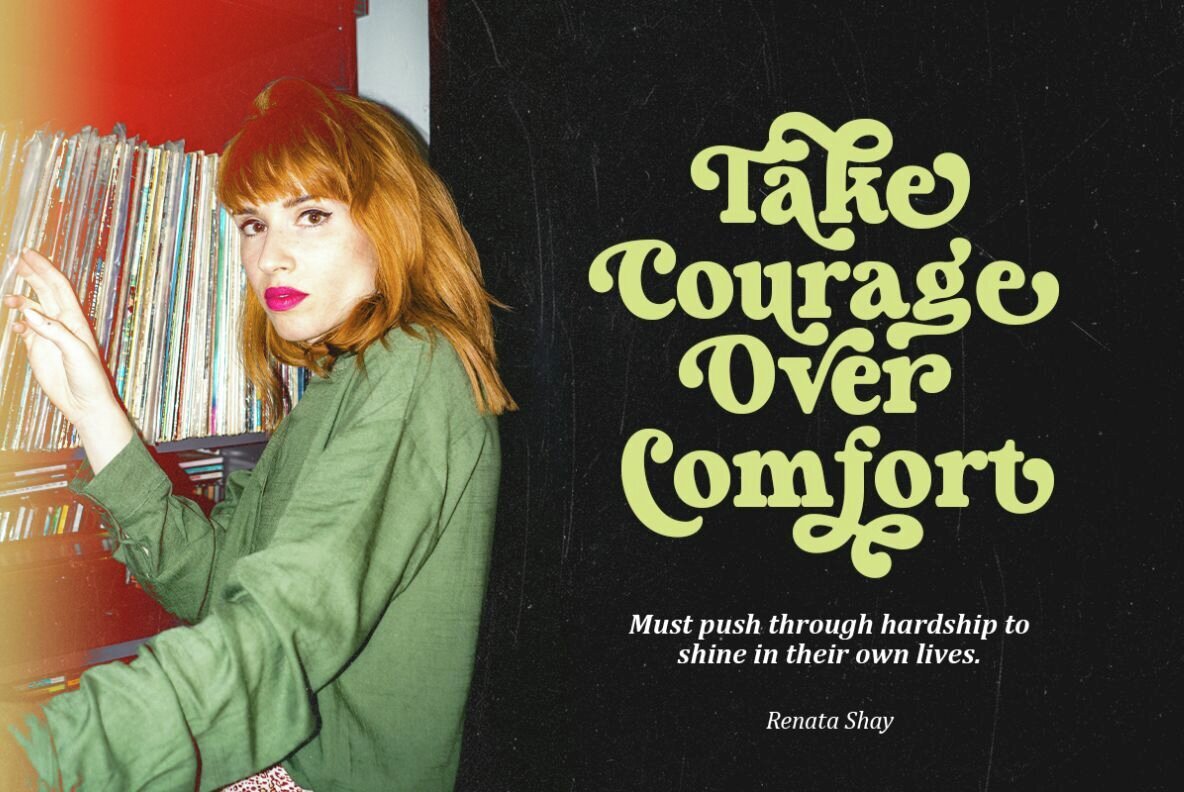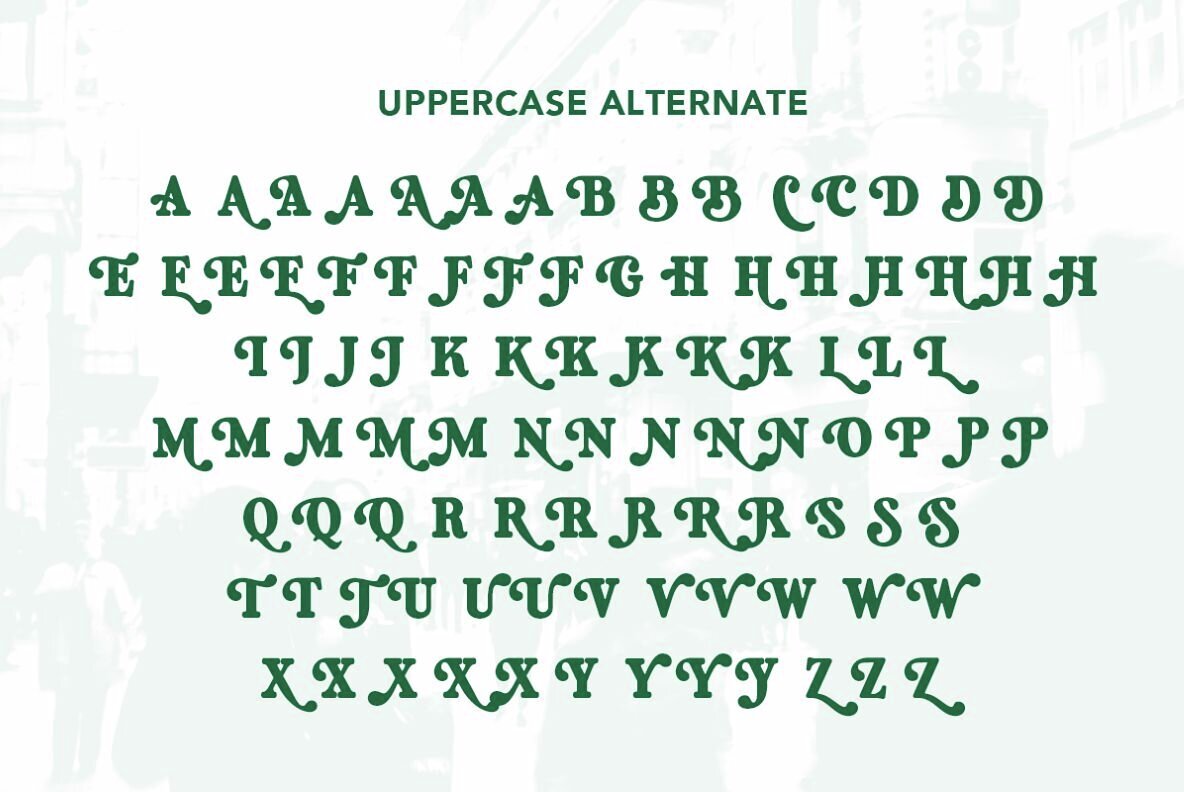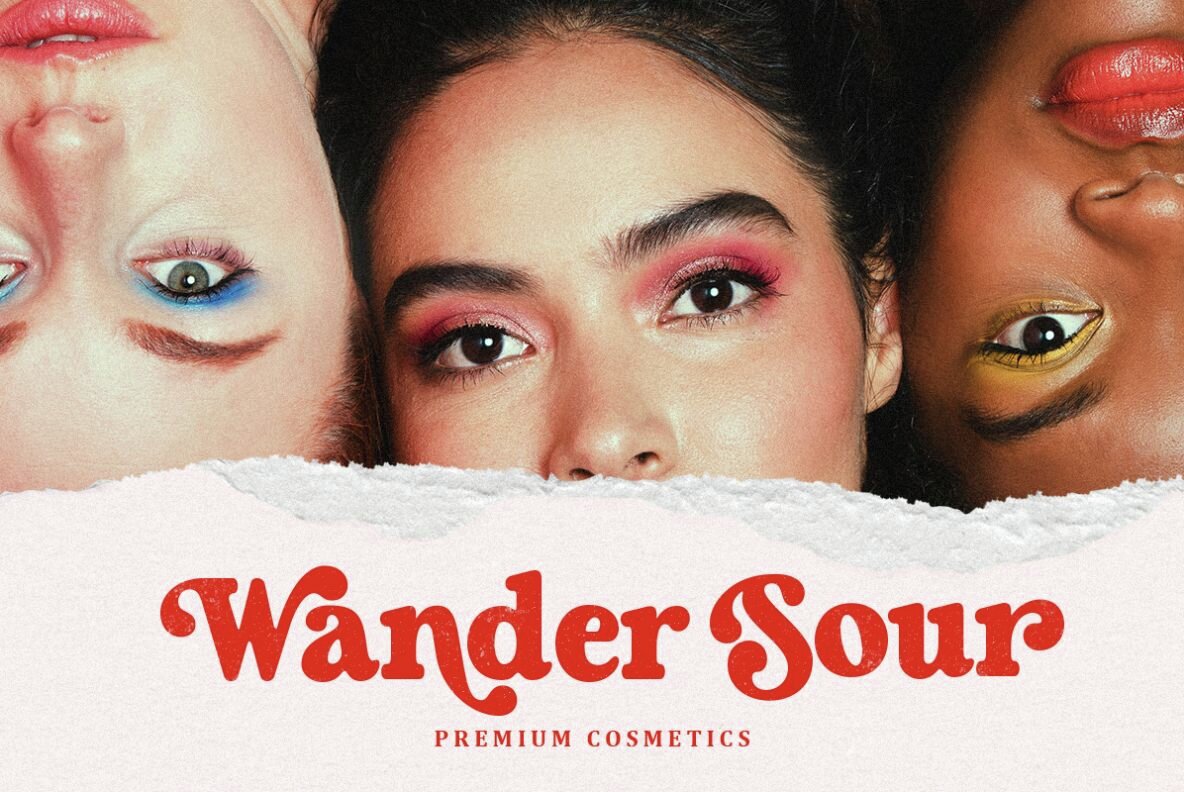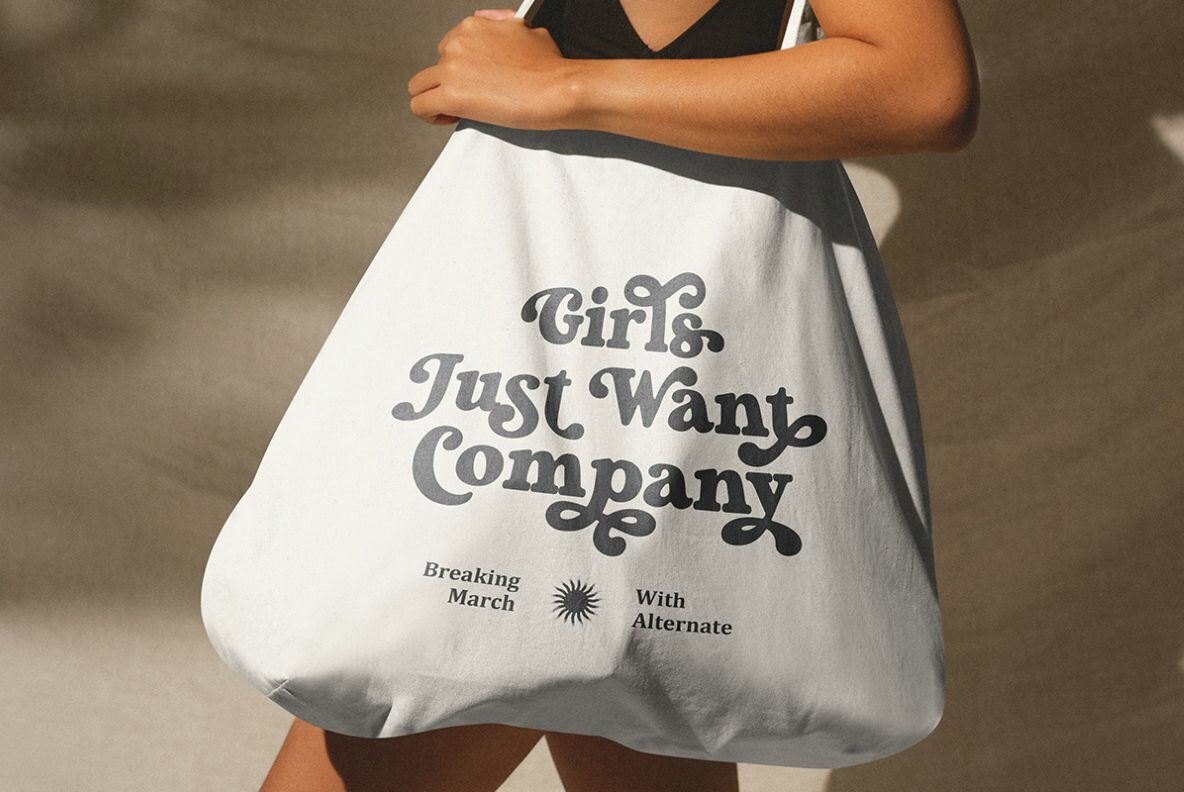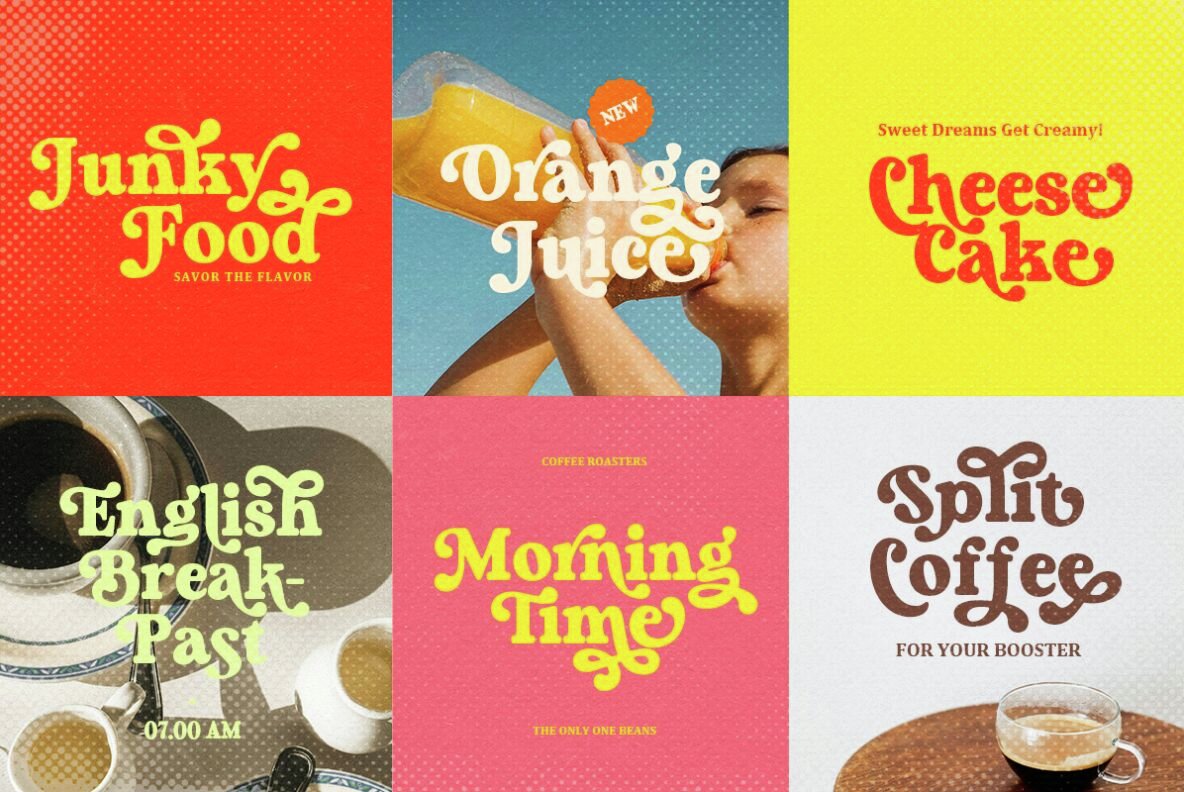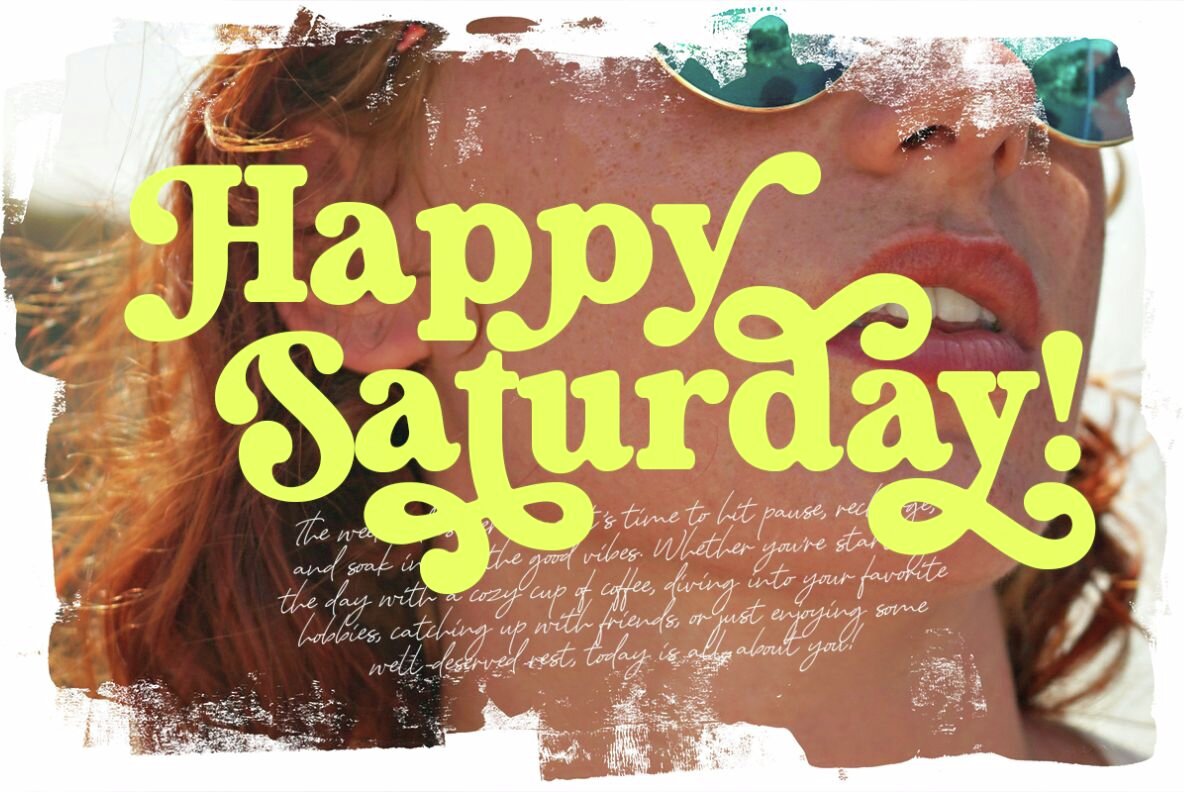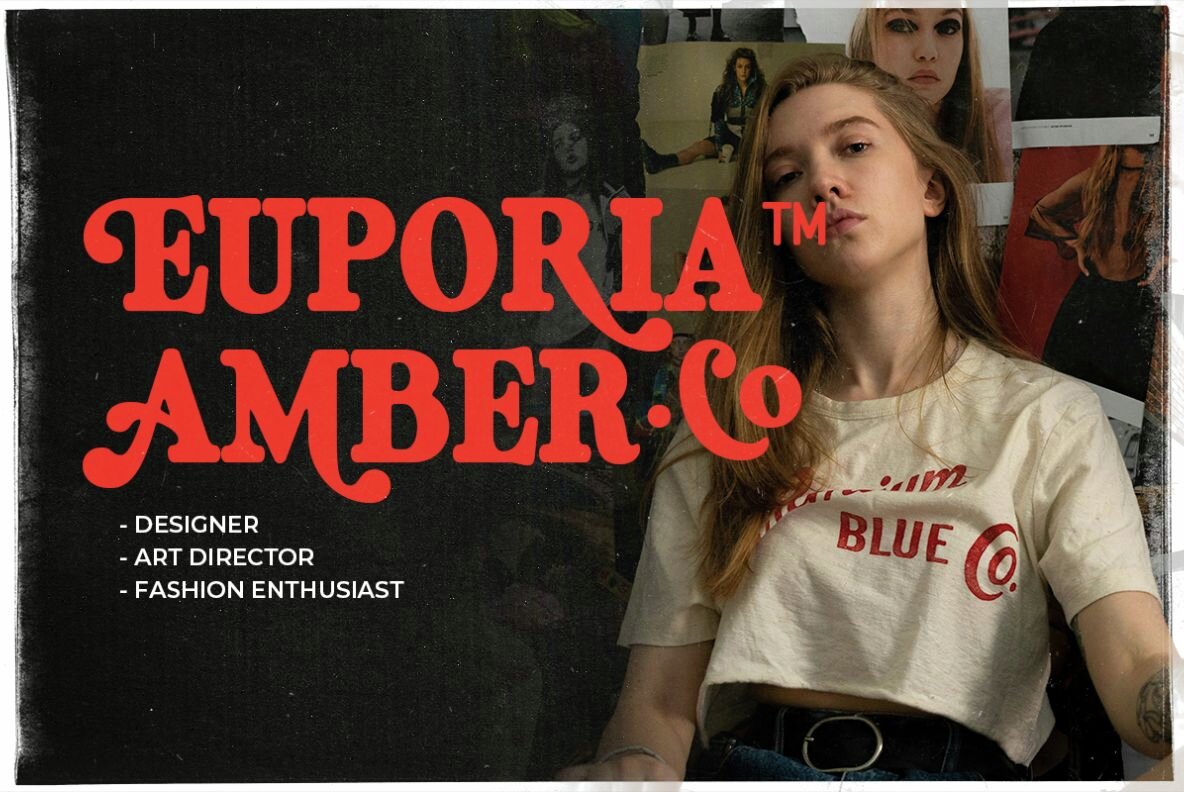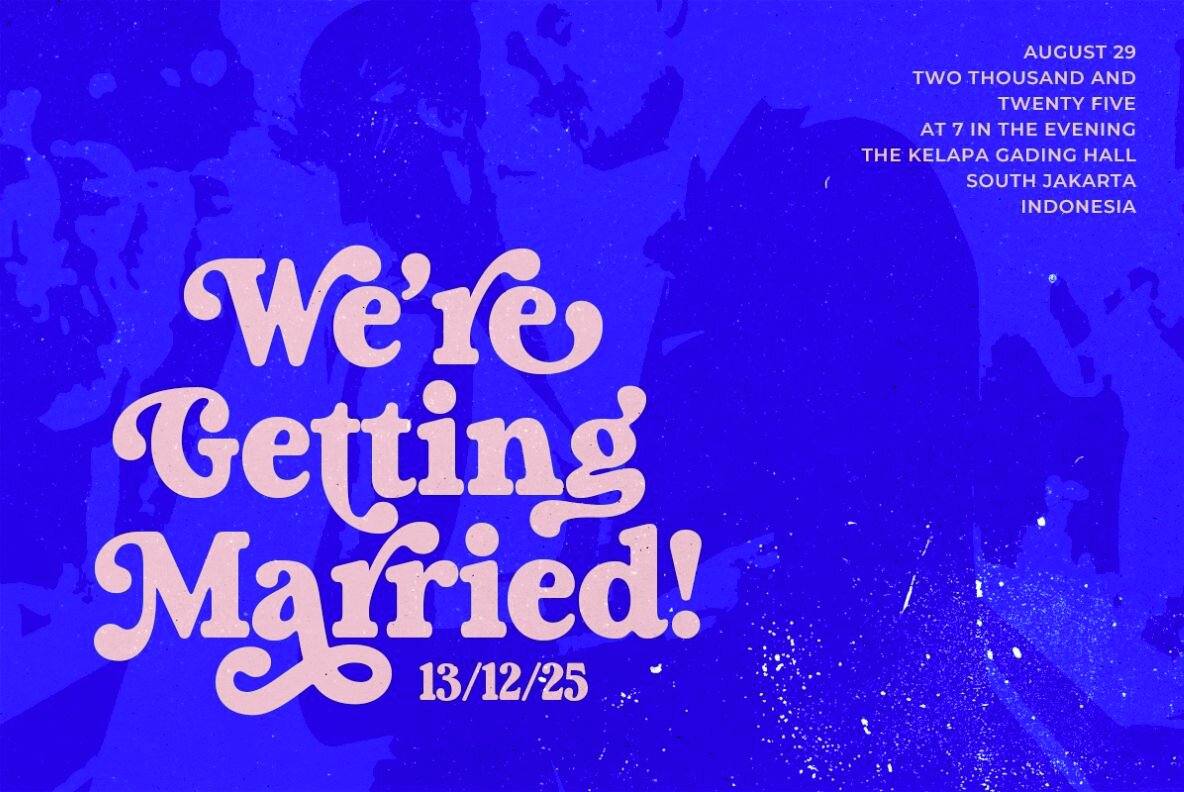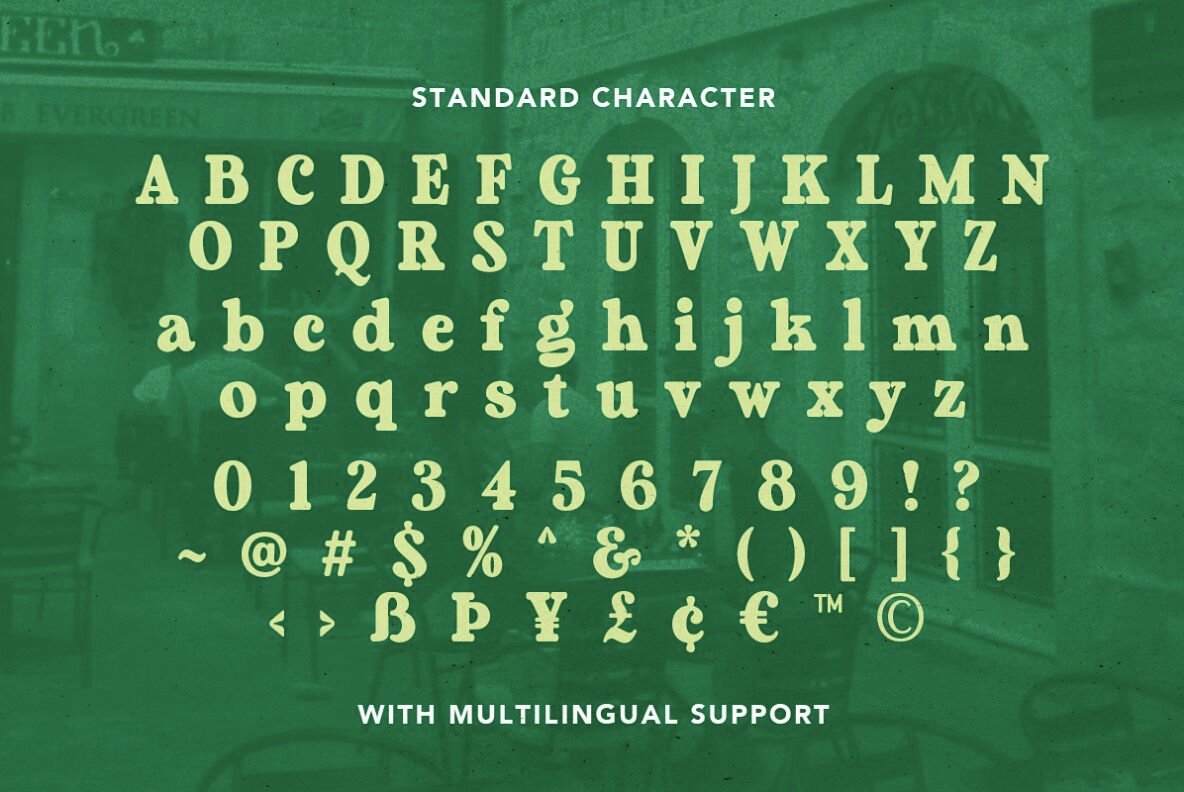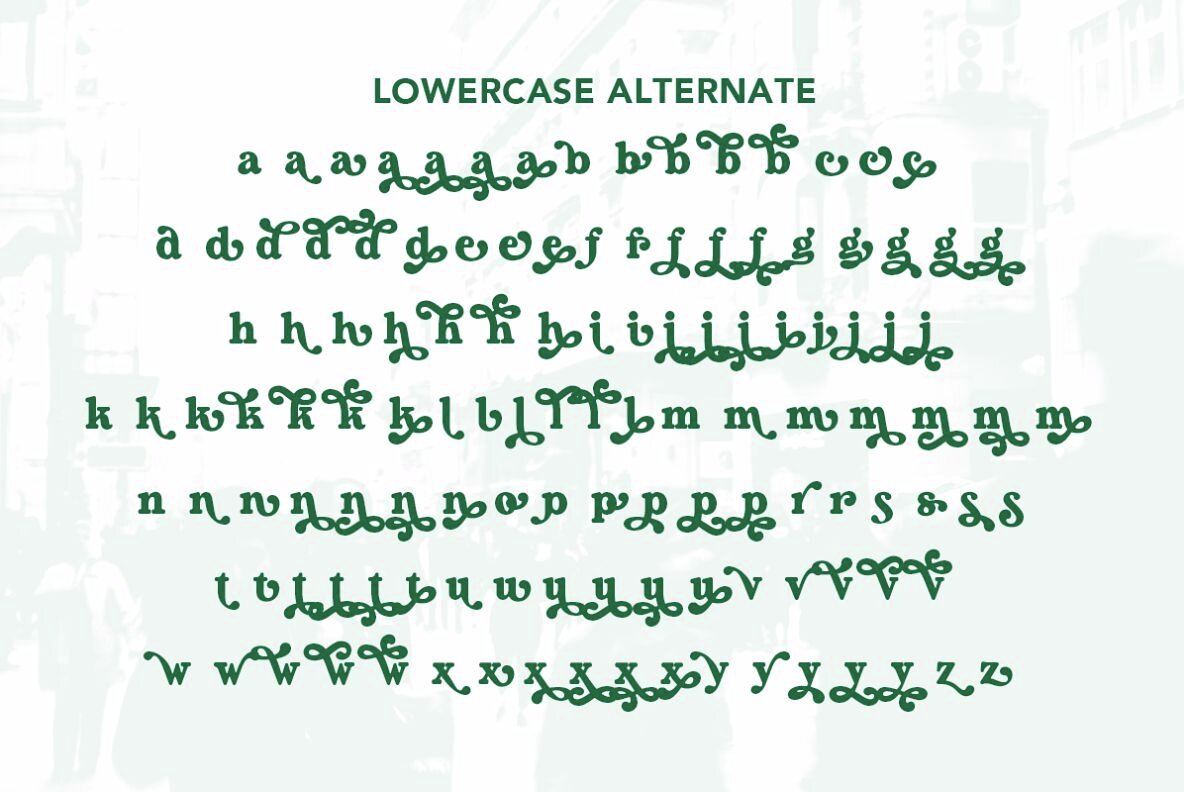
Breaking March Font
Breaking March is a retro and groovy bold serif with bunch of alternates. Including up to 7 sets stylistic alternates each characters that will elevate your designs looks more stunning and nostalgic. You can use this font for any purposes such as magazine, advertising, poster, branding, and quotes. This font also support multi language!